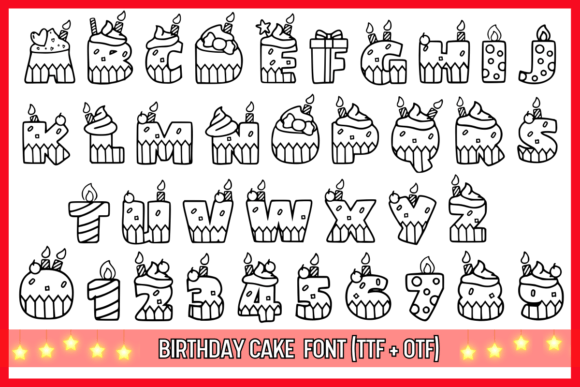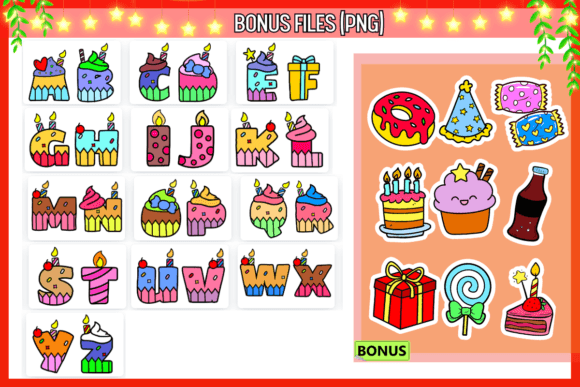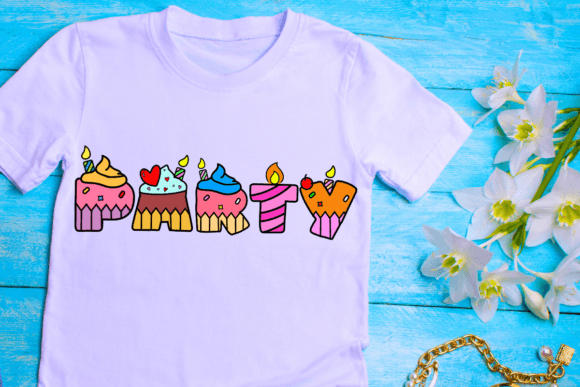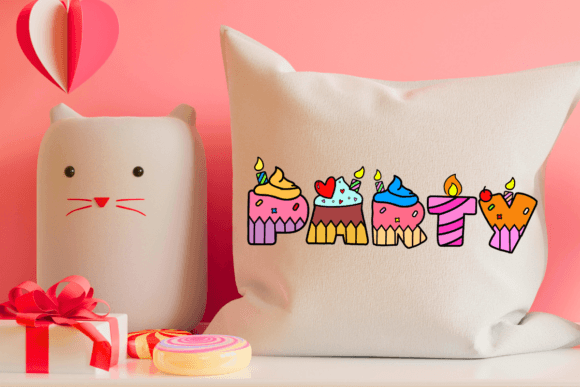
Introducing the Sweetest Font for Your Celebrations: Birthday Cake Font
Are you looking for a fun and playful way to add a personal touch to your birthday invitations, cards, and decorations? Look no further than the Birthday Cake Font! This delightful font is designed to bring a smile to your face and a dash of whimsy to your designs. In this article, we’ll dive into the details of this charming font and explore how you can use it to make your celebrations even sweeter.
What is Birthday Cake Font?
“Birthday Cake” is a unique and creative font where each letter is designed to look like a cupcake. Yes, you read that right – each letter is a cupcake! This font is perfect for anyone who loves baking, celebrating, or just adding a bit of fun to their designs. The font comes in PNG image format, making it easy to use in your projects.
Key Features of Birthday Cake Font
- Cupcake Letters: Each letter of the alphabet is designed to resemble a colorful cupcake, complete with frosting and sprinkles.
- Playful and Fun: The font is perfect for birthday invitations, cards, and decorations, adding a playful touch to your celebrations.
How to Use Birthday Cake Font in Your Designs
The Birthday Cake Font is incredibly versatile and can be used in a variety of ways to add a sweet touch to your designs. Here are a few ideas to get you started:
Birthday Invitations
Create custom birthday invitations that set the tone for a fun and festive celebration. Use the cupcake letters to spell out the birthday child’s name, the party theme, or a special message.
Birthday Cards
Add a personal touch to your birthday cards with the Birthday Cake Font. Use the cupcake letters to write a heartfelt message or a fun birthday greeting.
Decorations
Use the Birthday Cake Font to create custom decorations for your party, such as banners, garlands, or cupcake toppers. You can also use the font to create custom party favors or gift tags.
Tips and Tricks for Using Birthday Cake Font
Here are a few tips and tricks to help you get the most out of the Birthday Cake Font:
- Mix and Match: Experiment with different colors and patterns to create a unique look that matches your party theme.
- Add Texture: Add texture to your designs by layering the cupcake letters over a background image or texture.
- Be Creative: Don’t be afraid to get creative and try new things! The Birthday Cake Font is a versatile tool that can be used in countless ways.
The Birthday Cake Font is a fun and playful way to add a sweet touch to your birthday invitations, cards, and decorations. With its cupcake-inspired letters and easy-to-use PNG image format, this font is perfect for designers and crafters of all levels. Whether you’re creating custom party favors, decorations, or invitations, the Birthday Cake Font is sure to bring a smile to your face and a dash of whimsy to your designs.